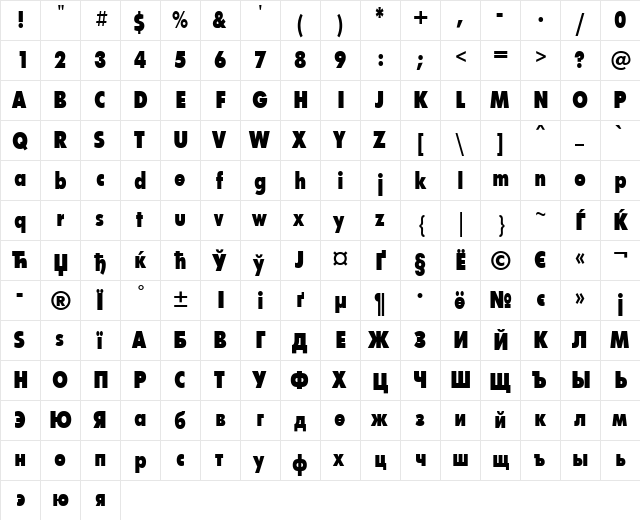
FuturaFuturisXCondC Regular
Design Context for FuturaFuturisXCondC Typeface
FuturaFuturisXCondC channels digital-age aesthetics through its sharp, structured letterforms — ideal for brands that want to signal innovation. The condensed width makes it efficient for tight spaces without sacrificing legibility.